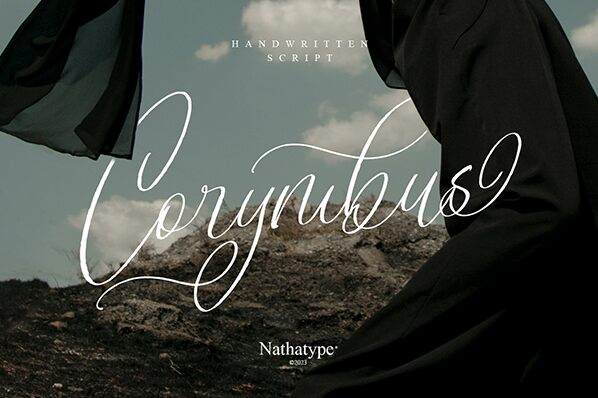
Corymbus font is a delicate light handwritten font introduced by Nathatype. The font features a sophisticated design with condensed width and flowing, ornate characters. It creates an elegant look and feel: ideal for when you’re going after decorativeness. Be it elegance or flow of letters, the font is surely one to try!